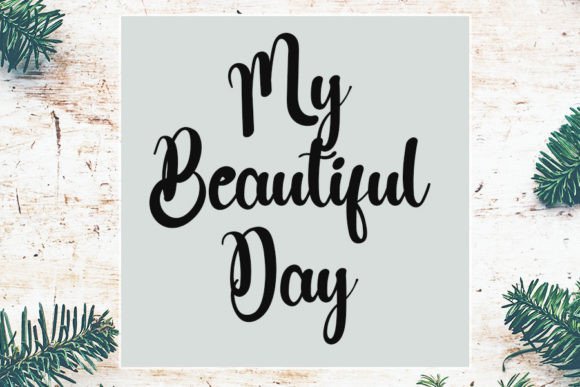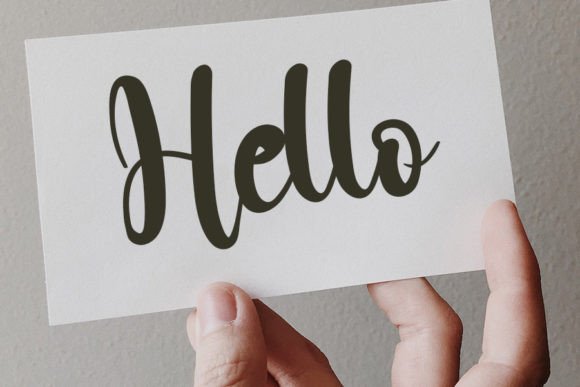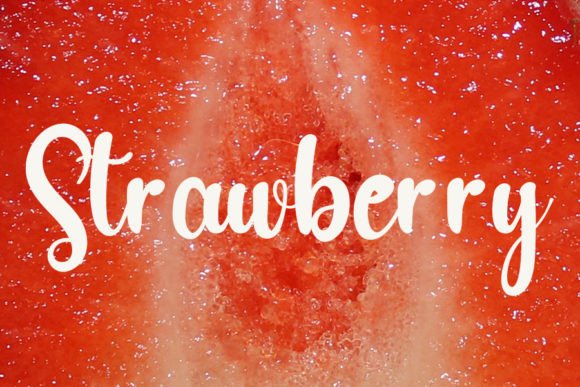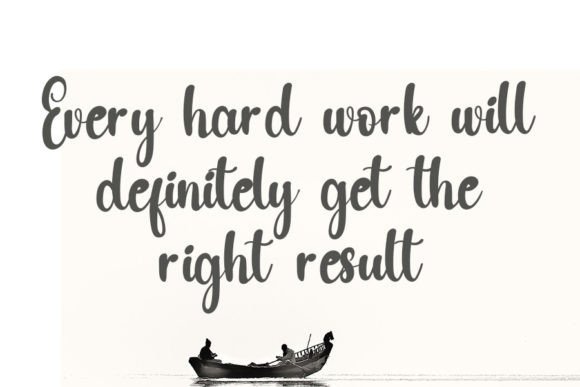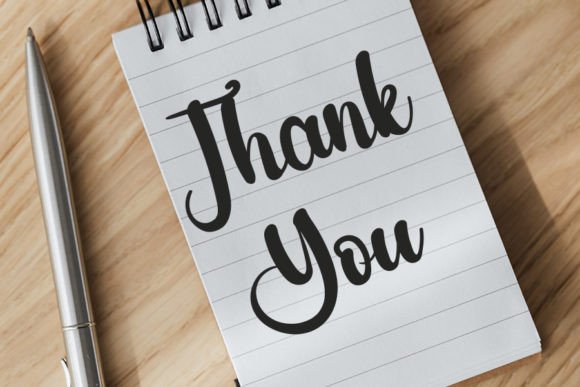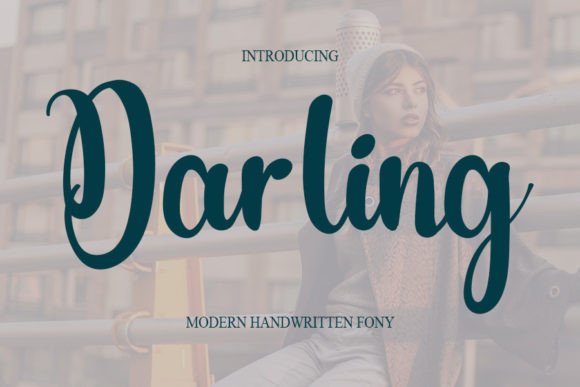
Introducing Darling Font: The Sweet and Delicate Handwritten Font for Romantic Designs
Are you a designer or crafter looking for a font that can add a touch of romance and personalization to your designs? Look no further than Darling Font, a sweet and delicate handwritten font that’s perfect for creating beautiful wedding invitations, cards, and other designs that require a feminine and elegant touch.
What Makes Darling Font So Special?
Darling Font is a dainty and joyful handwritten font that’s designed to bring a touch of whimsy and romance to your designs. Its delicate and intricate strokes make it perfect for creating beautiful wedding invitations, save-the-date cards, and other romantic designs. The font’s sweet and feminine style is sure to capture the hearts of anyone who sees it, making it an ideal choice for designers and crafters who want to create designs that are both elegant and personal.
Perfect for Wedding Designs and More
Darling Font is specifically designed with wedding designs in mind. Its romantic and elegant style makes it perfect for creating beautiful wedding invitations, save-the-date cards, and other wedding-related designs. But it’s not just limited to wedding designs – this font can also be used for creating beautiful cards, stationery, and other paper crafts that require a personal and feminine touch.
Key Features of Darling Font
• Sweet and delicate handwritten font: Darling Font is a beautifully designed handwritten font that’s perfect for creating romantic and elegant designs.
• Dainty and joyful: The font’s delicate and intricate strokes make it perfect for creating beautiful designs that are both elegant and playful.
• Perfect for wedding designs: Darling Font is specifically designed with wedding designs in mind, making it perfect for creating beautiful wedding invitations, save-the-date cards, and other wedding-related designs.
• Personalized touch: The font’s sweet and feminine style makes it perfect for adding a personal touch to your designs.
How to Use Darling Font in Your Designs
• Wedding invitations and save-the-date cards
• Cards and stationery
• Paper crafts and DIY projects
• Signs and banners
Tips and Tricks for Getting the Most Out of Darling Font
Here are a few tips and tricks for getting the most out of Darling Font:
• Pair it with other fonts: Darling Font pairs perfectly with other fonts, such as serif and sans-serif fonts. Try pairing it with a bold font for a beautiful contrast.
• Experiment with colors: The font looks beautiful in a variety of colors, from soft pastels to bold and bright colors. Experiment with different colors to find the one that works best for your design.
• Add embellishments: Consider adding embellishments, such as flowers or hearts, to your design to give it a more romantic and whimsical feel.
Darling Font is a beautiful and delicate handwritten font that’s perfect for creating romantic and elegant designs. Its sweet and feminine style makes it perfect for wedding designs, cards, and other paper crafts that require a personal touch. With its dainty and joyful strokes, Darling Font is sure to capture the hearts of anyone who sees it. So why wait? Download Darling Font today and start creating beautiful designs that are both elegant and personal.